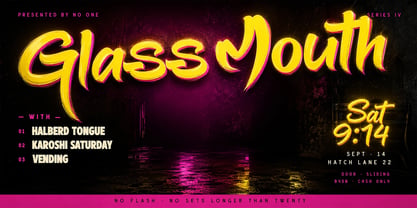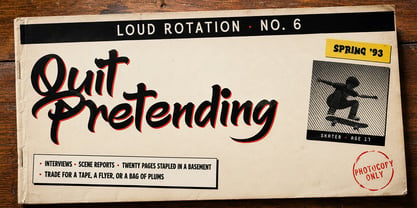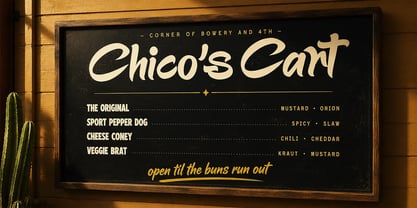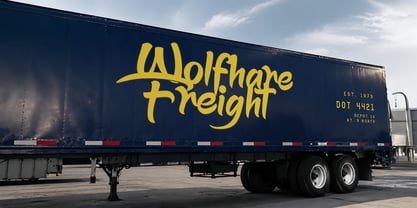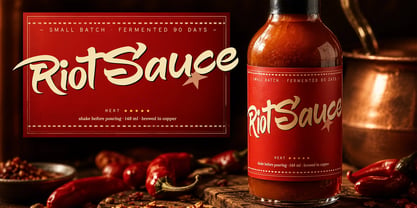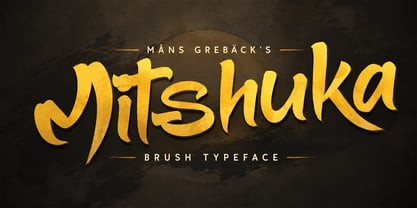
Mitshuka
Mitshuka is a bold tag-brush hybrid with quick exit strokes and a strong forward lean.
The lowercase has the rounded belly of a chisel-tip brush; the caps run taller and looser, with little hooks that flick out toward the next letter. Strokes shift from a heavy body to thin pulled tails, the way a hand actually moves under speed. The slant is consistent but never strict — letters lean into each other rather than march in line.
It belongs on the side of a parked van, or stencilled in a single afternoon along the back wall of a skate shop.
The font is built with advanced functionality and guaranteed top-notch quality, containing stylistic and contextual alternates, ligatures and more automatic and manual features; all to give you full control and customizability.
It has extensive lingual support, covering all Latin-based languages, from North Europa to South Africa, from America to South-East Asia. It contains all characters and symbols you'll ever need, including all punctuation and numbers.